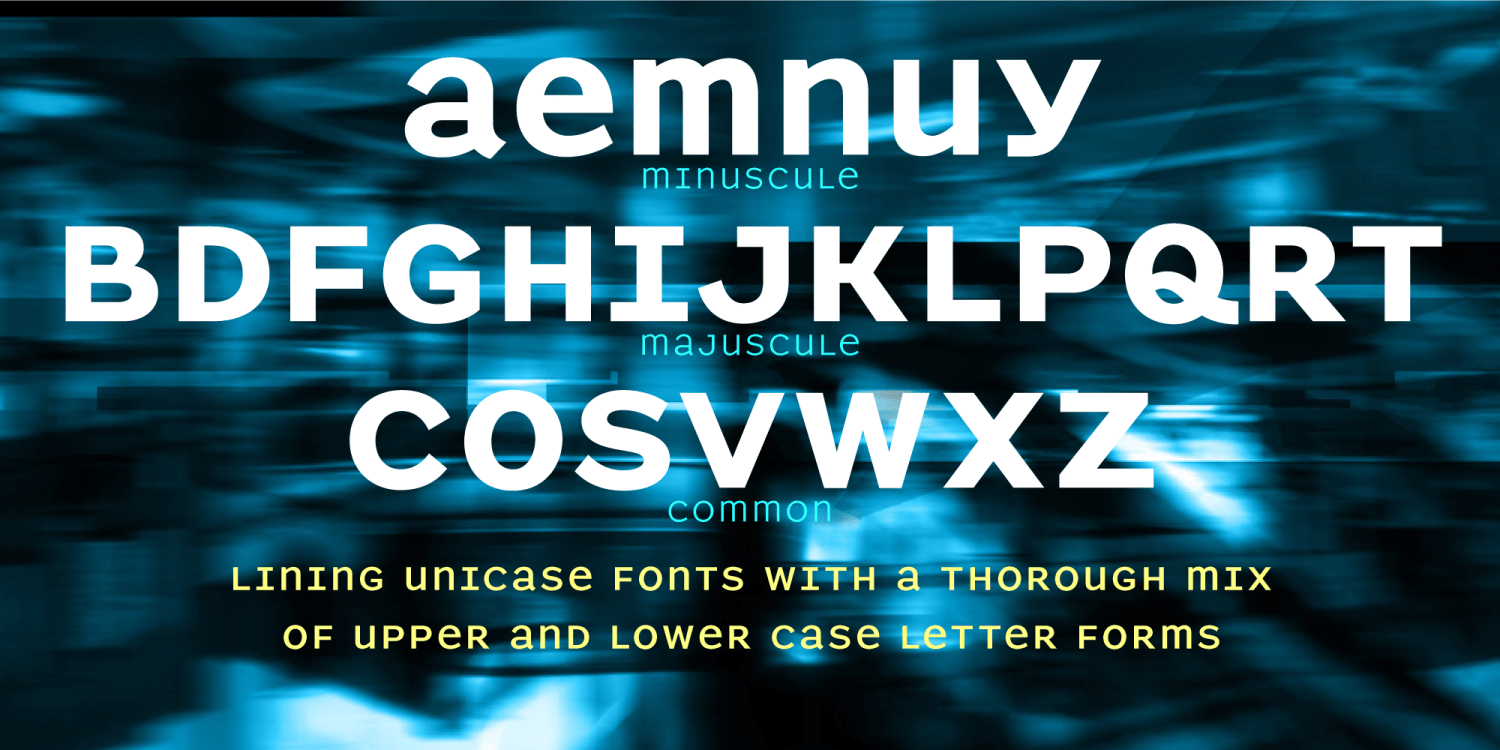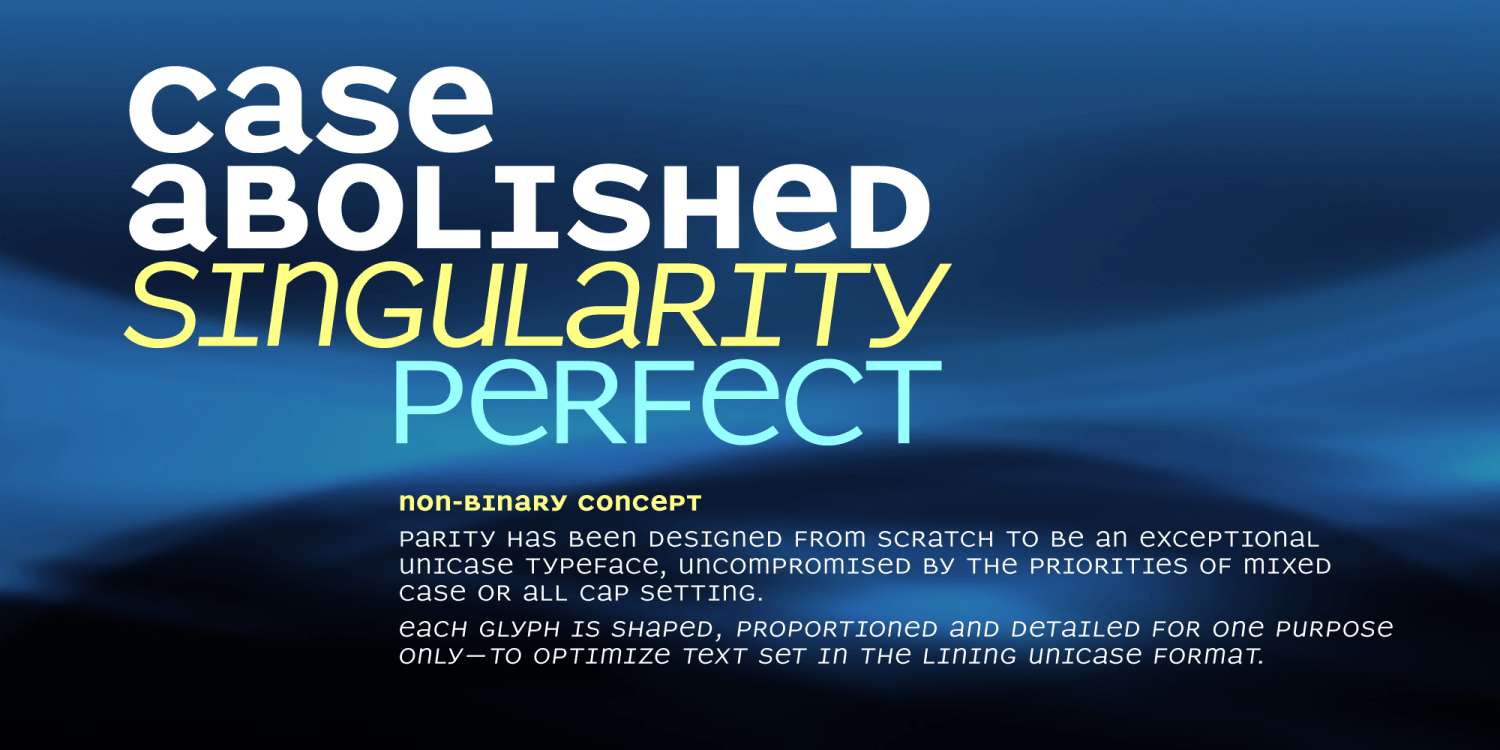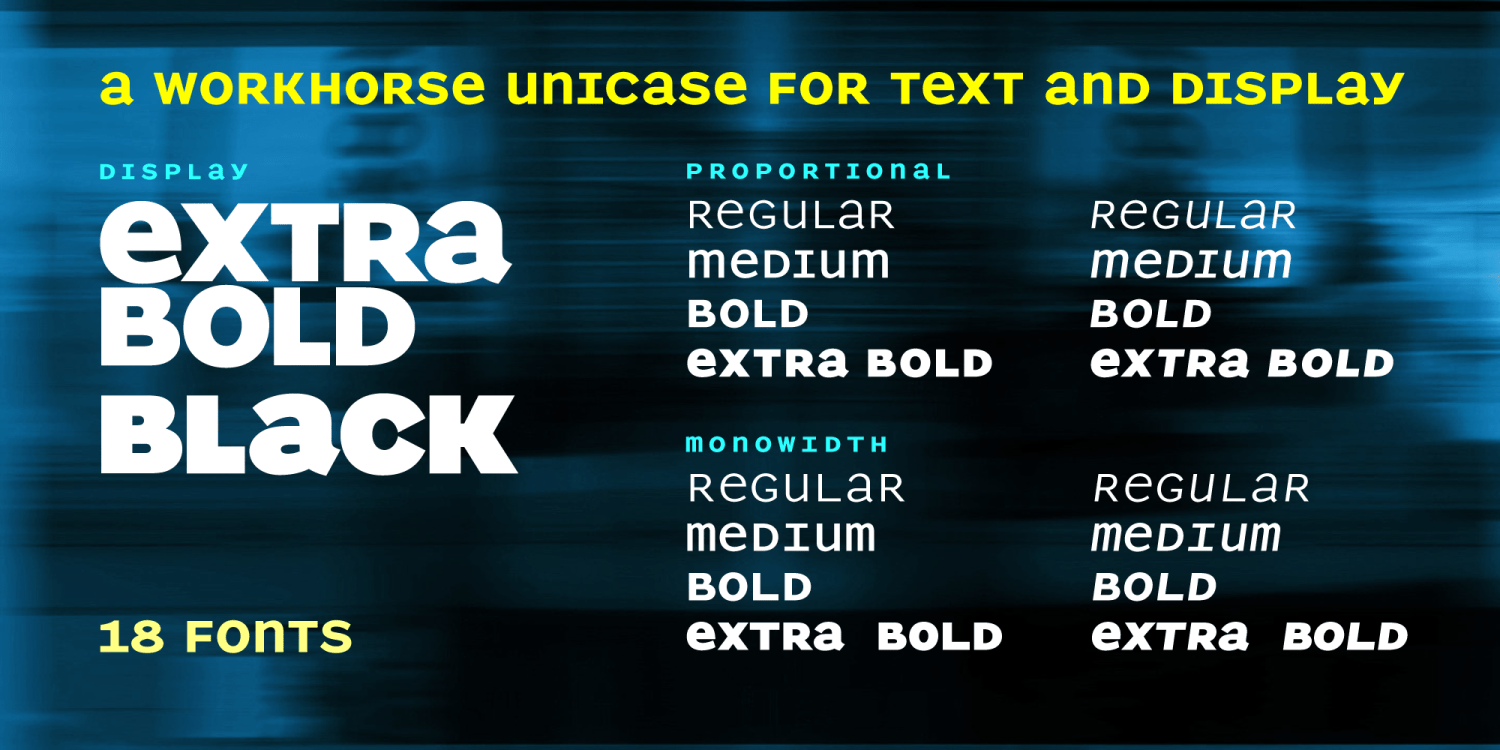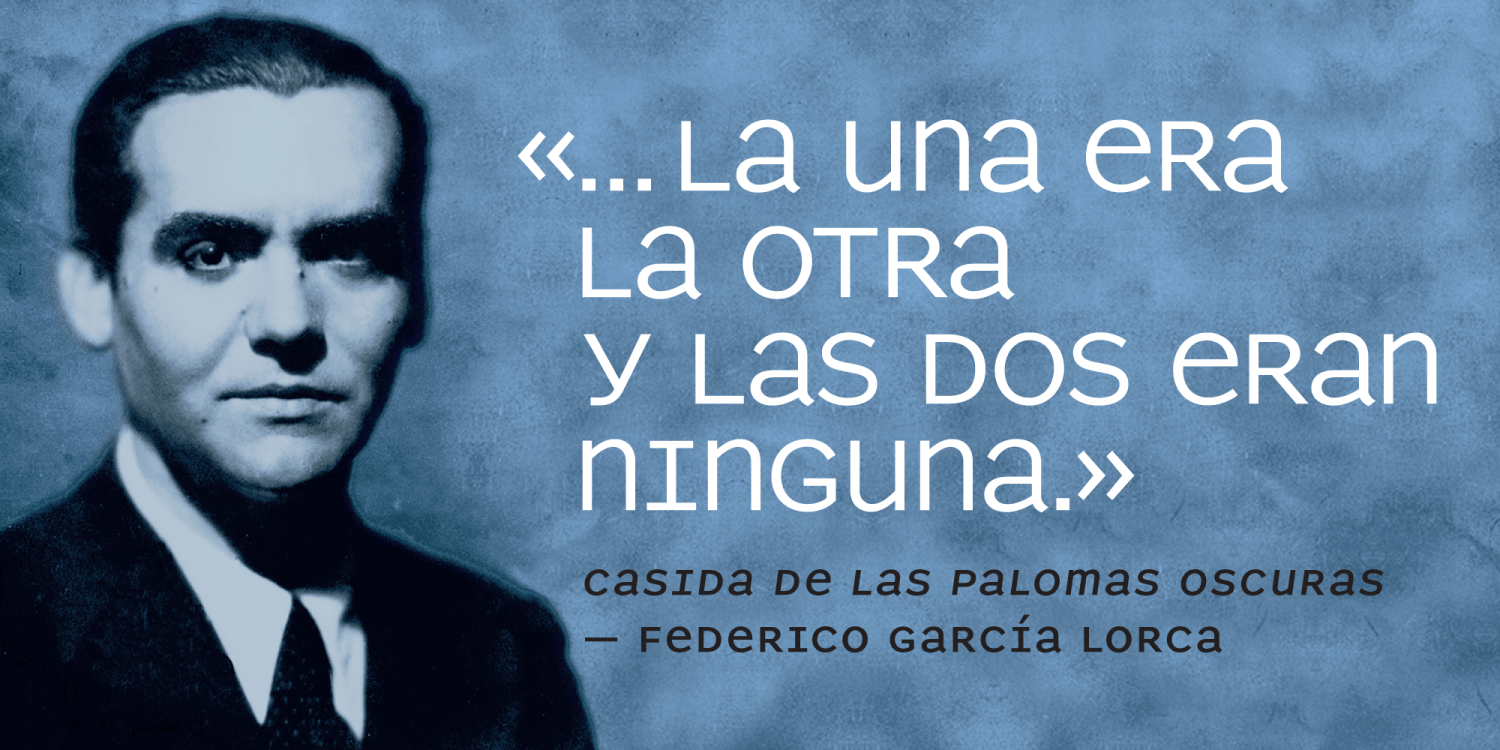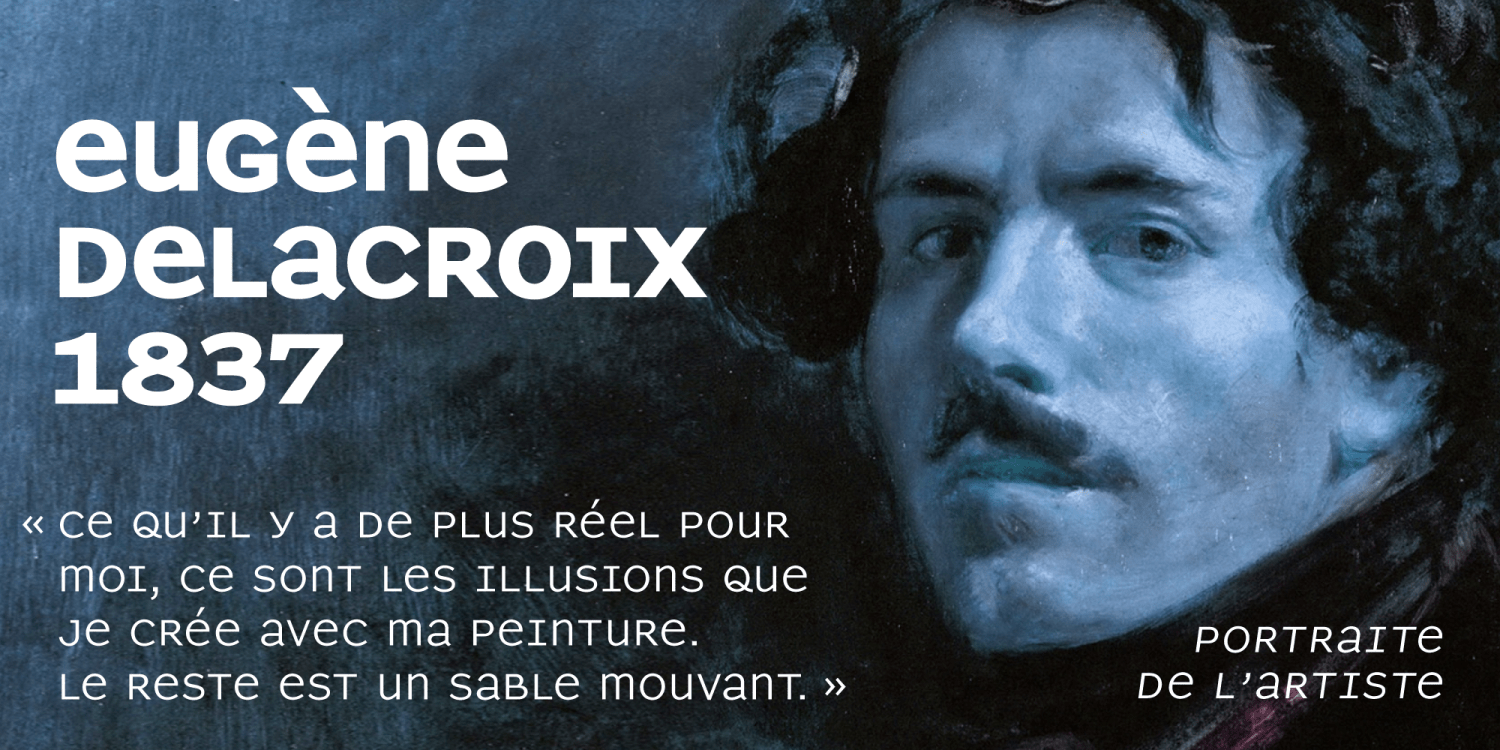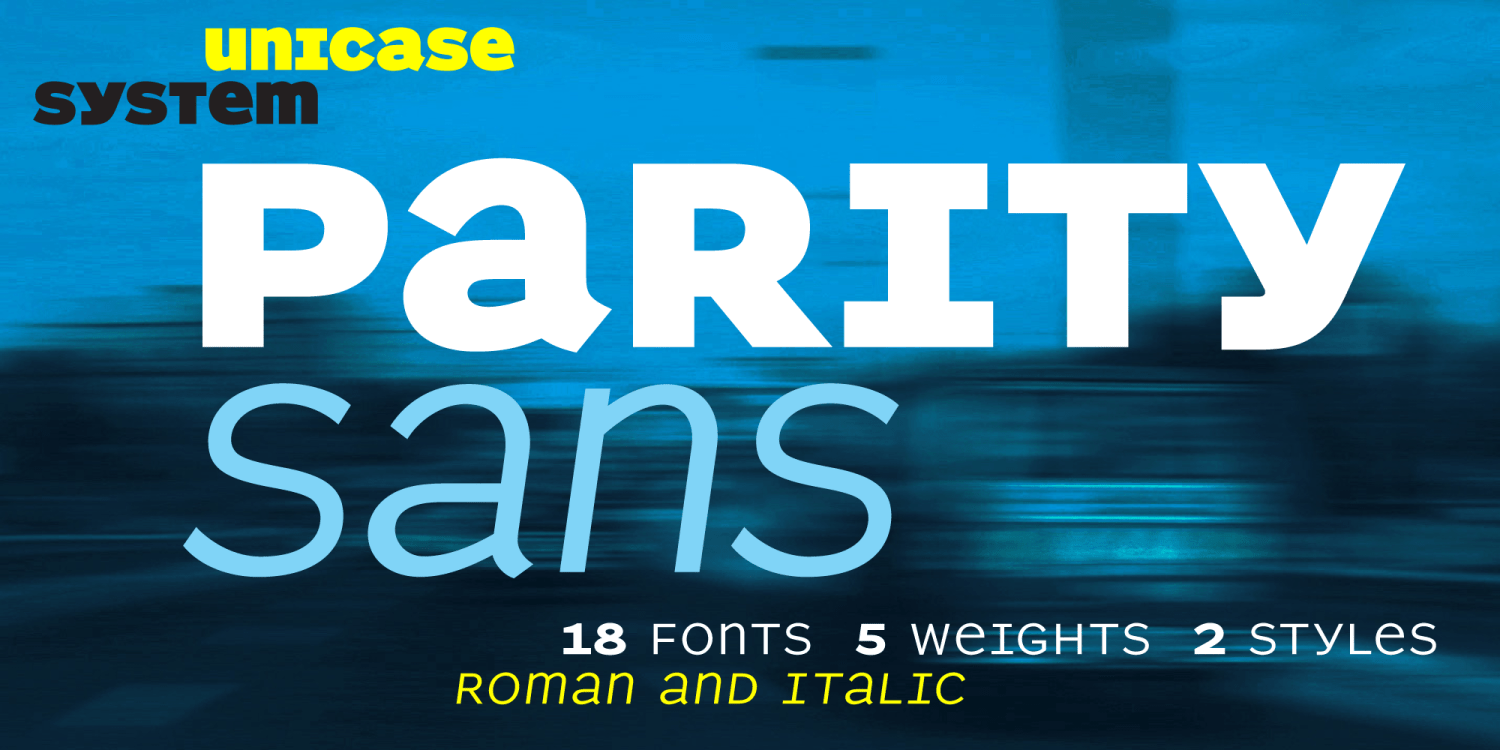
About Parity Sans
This workhorse lining unicase design has an extensive typeface family, enabling complex hierarchies of functionality, with italics, six weights, text and display styles, and both proportional and monowidth iterations.